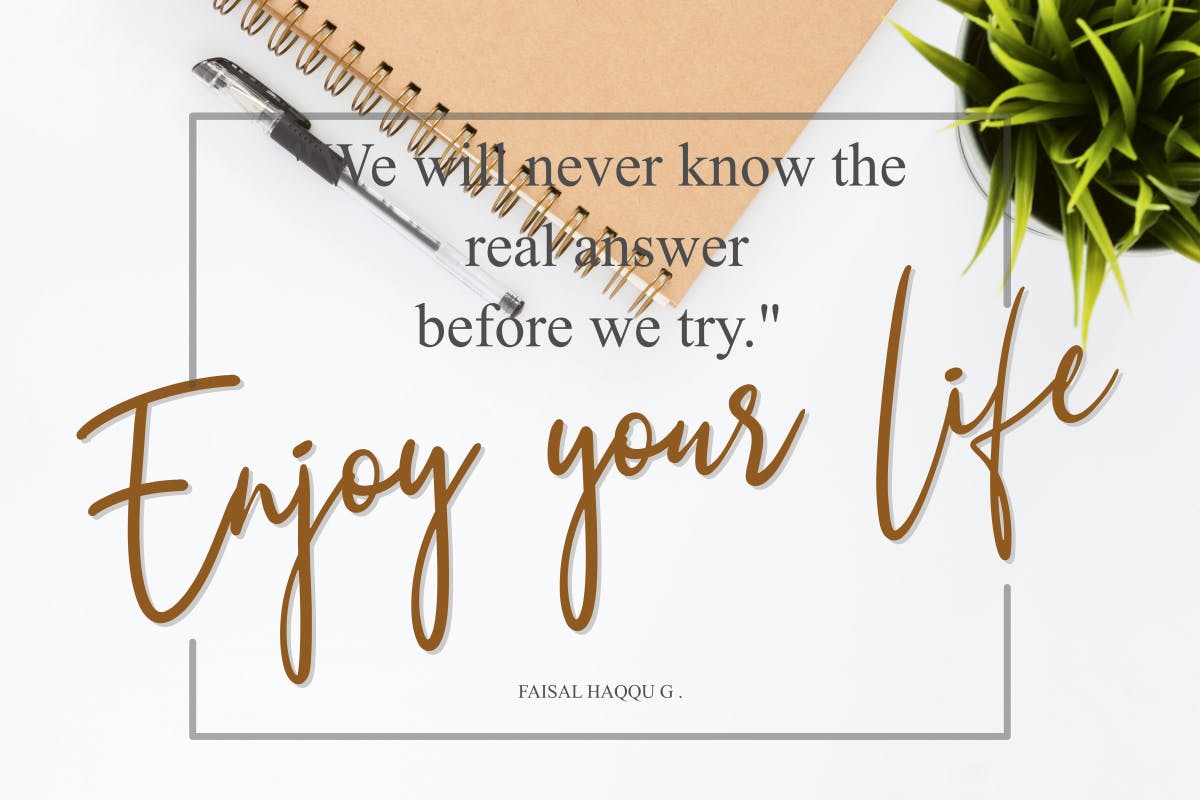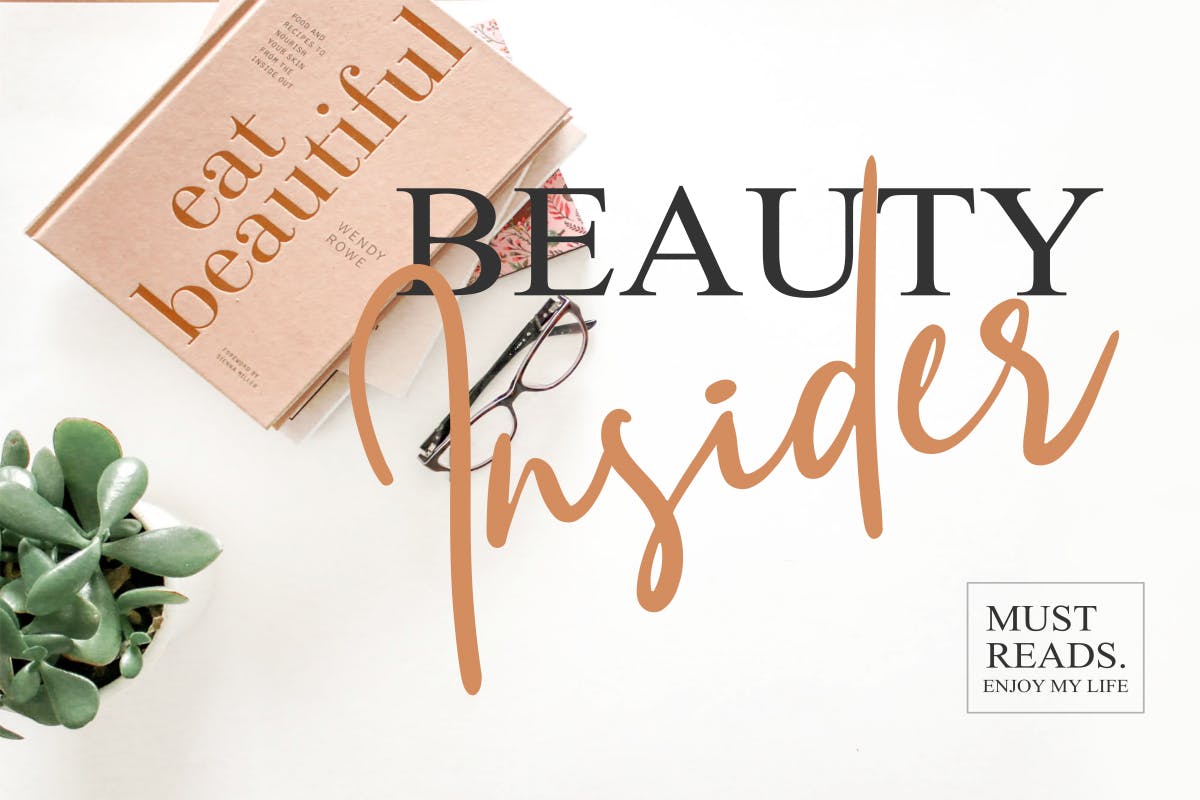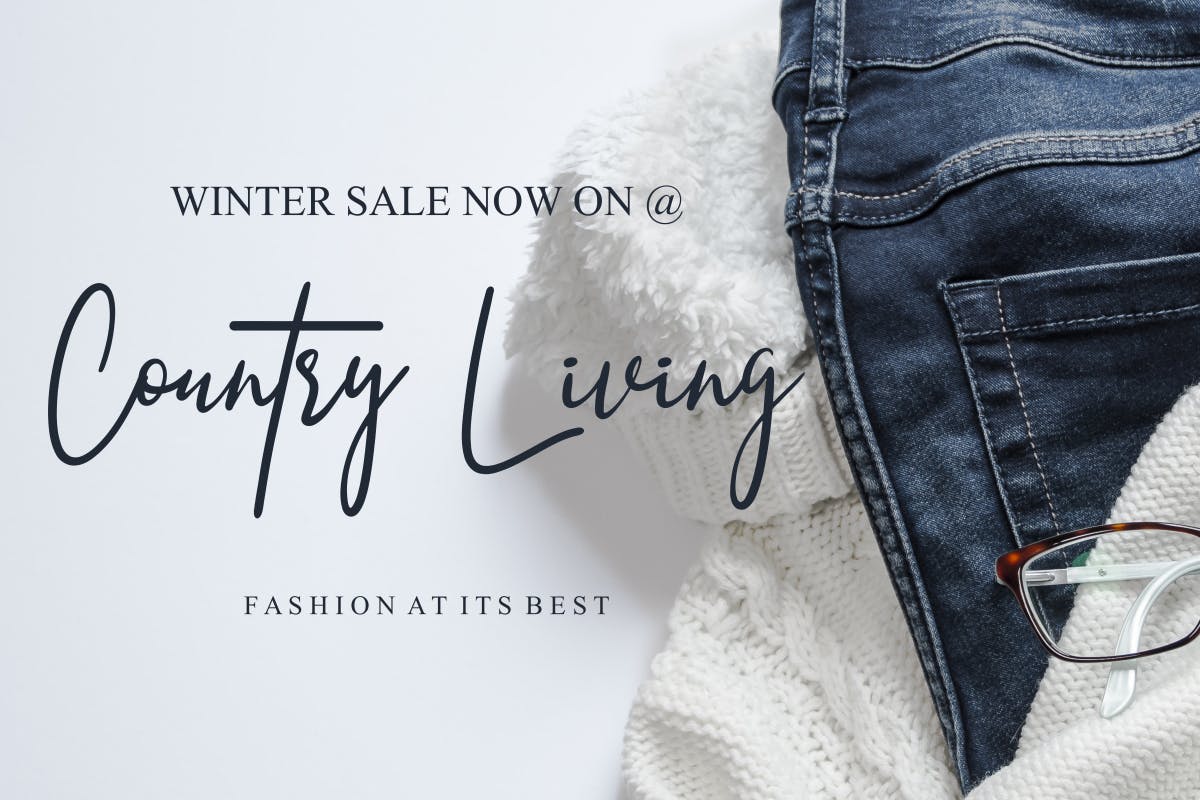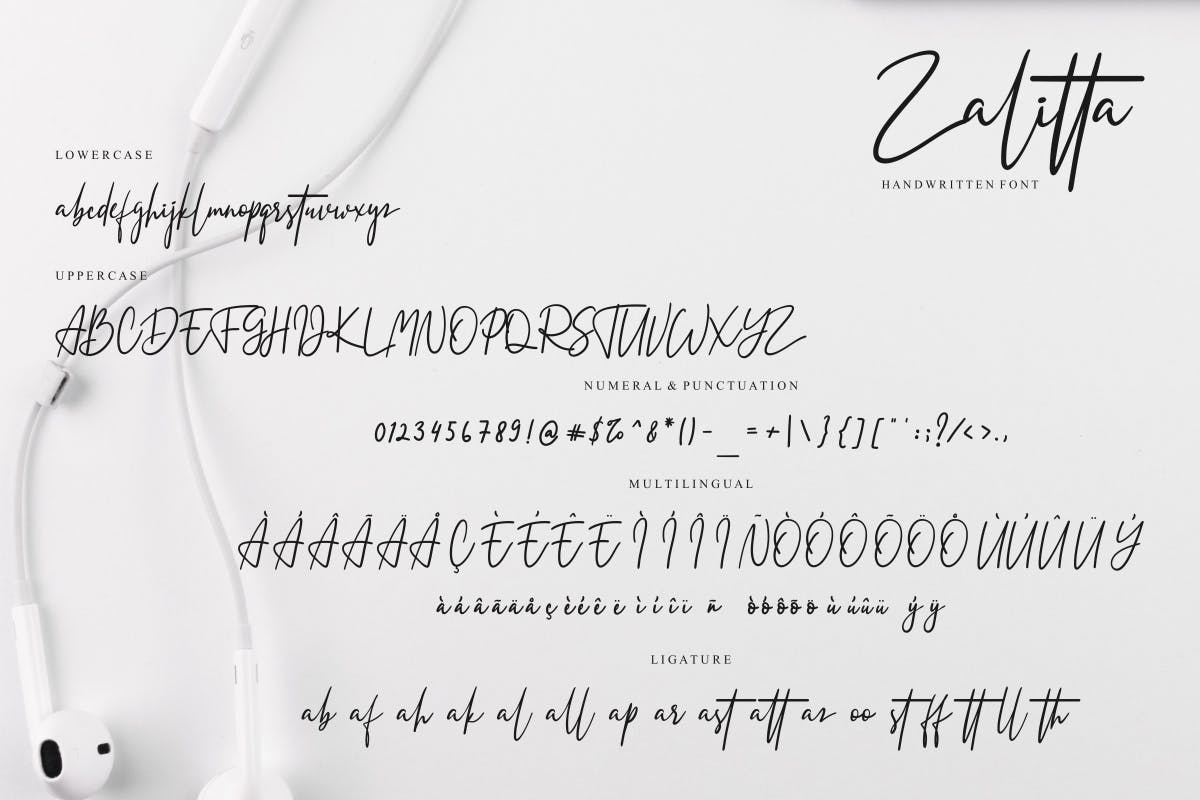
Free Demo Zalitta Script Signature Font
Free Demo Zalitta Script Signature Font is a fashionable signature-style script font. It looks elegant, classy and a luxury character that will make your works look perfect. This trial font also looks like a natural handwritten and beautiful script font, hence this font is very fine for natural theme. It is also suitable for your works such as branding, logo, wedding designs, social media posts, advertisements, and more. So, you only can use it for personal use, but you can get the premium version by purchasing it first.